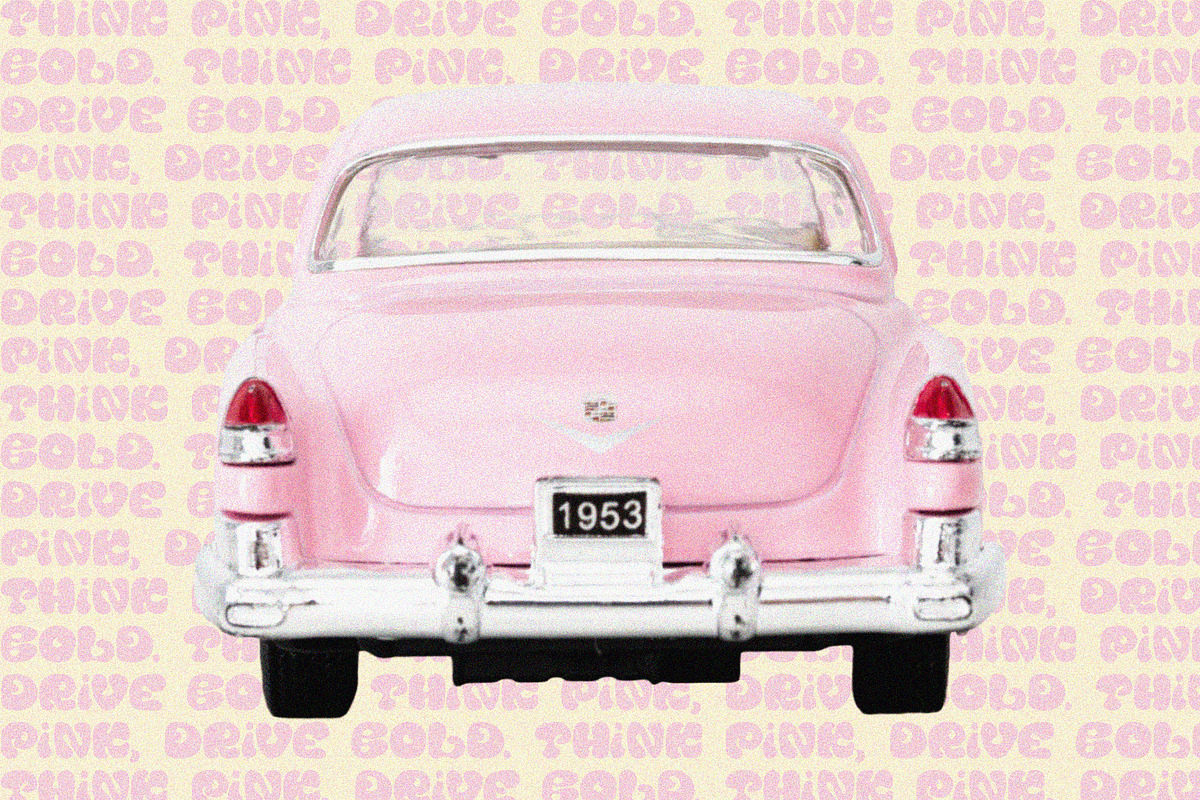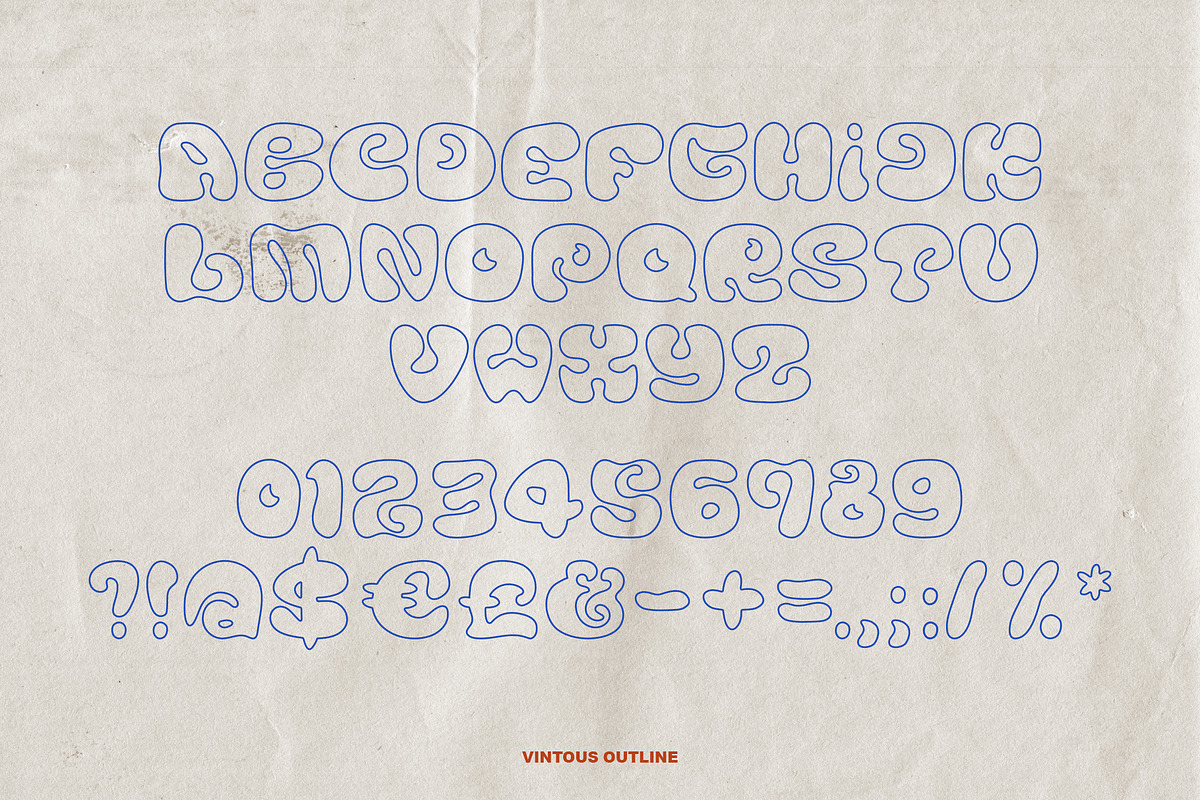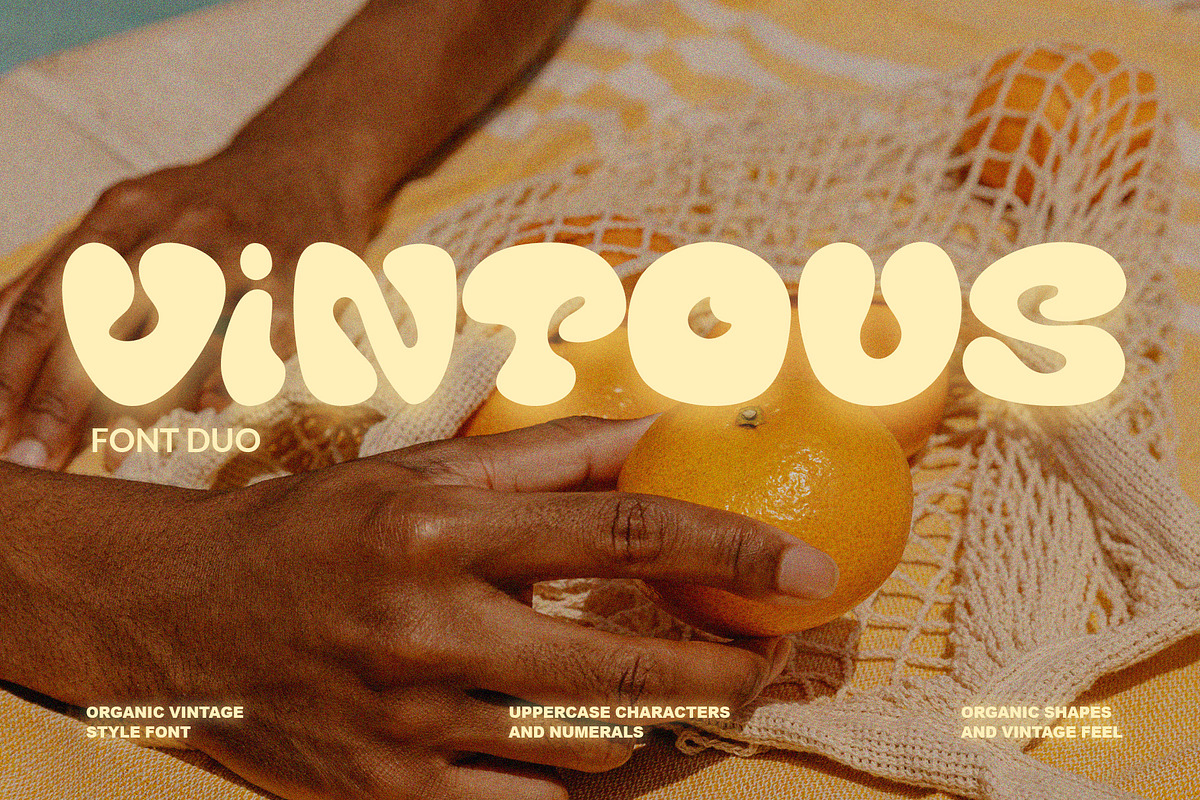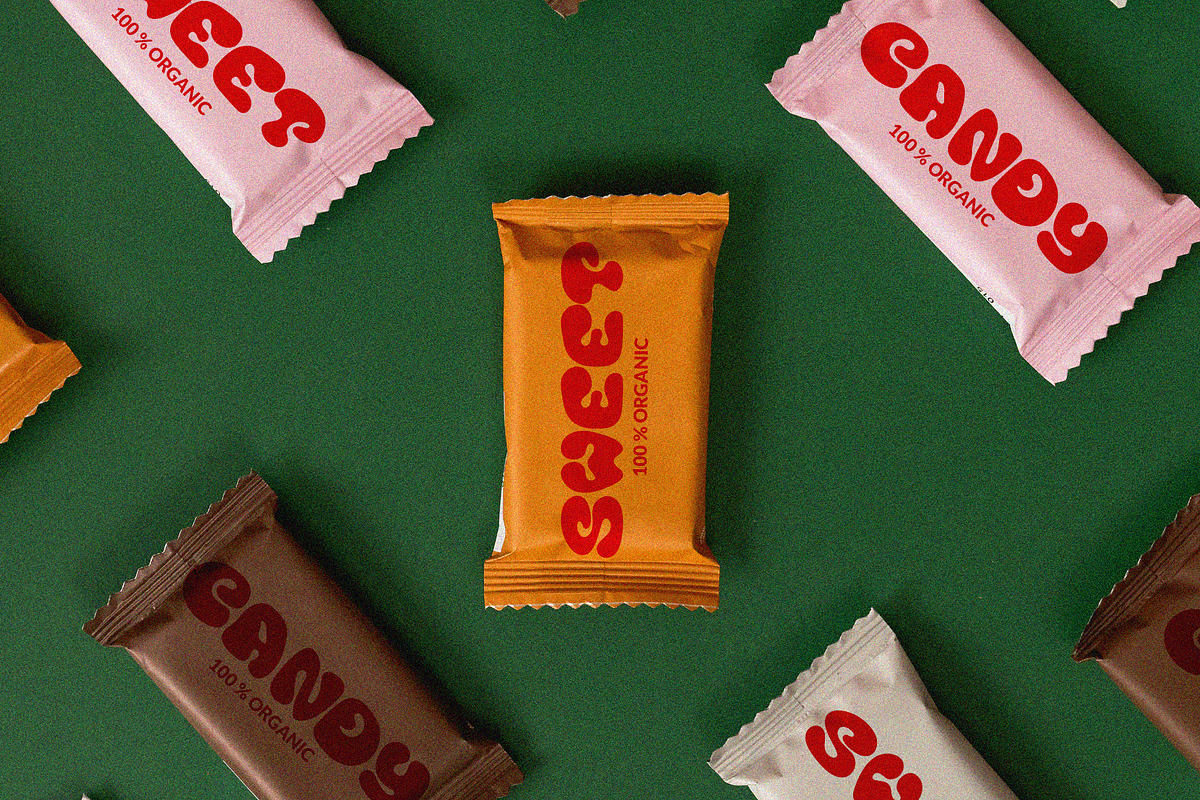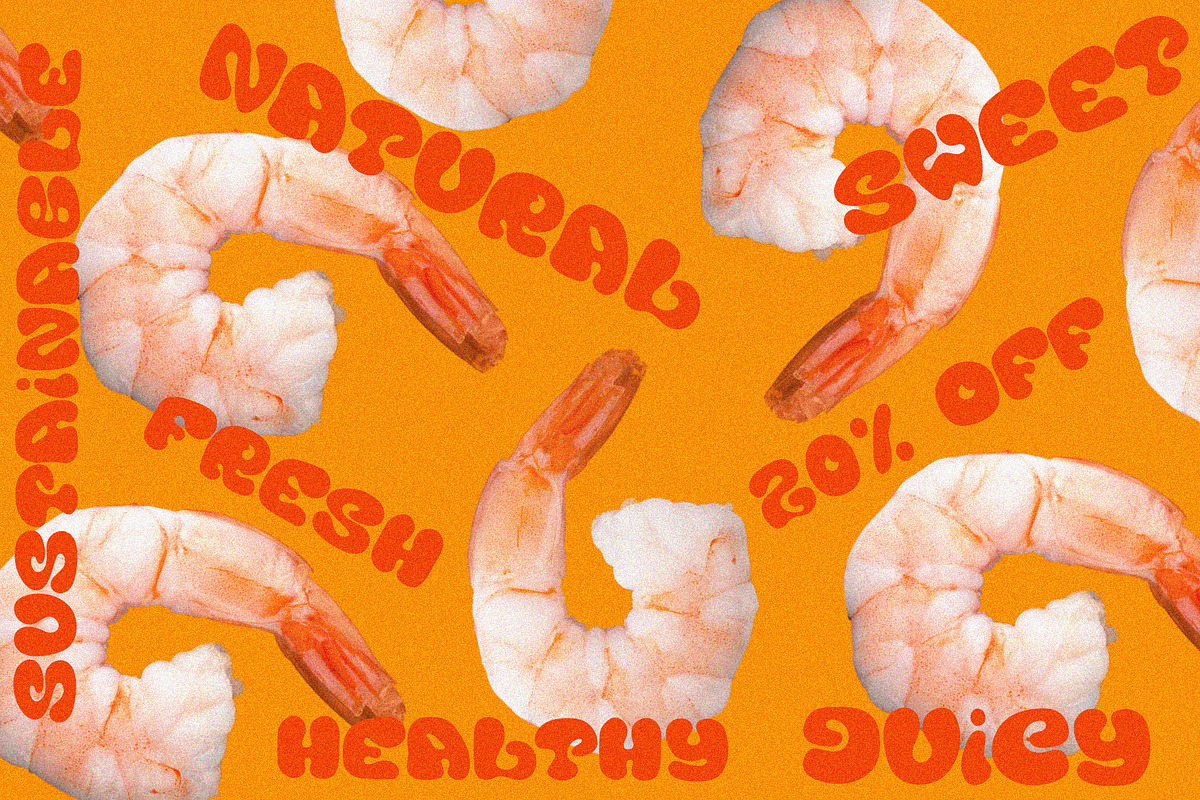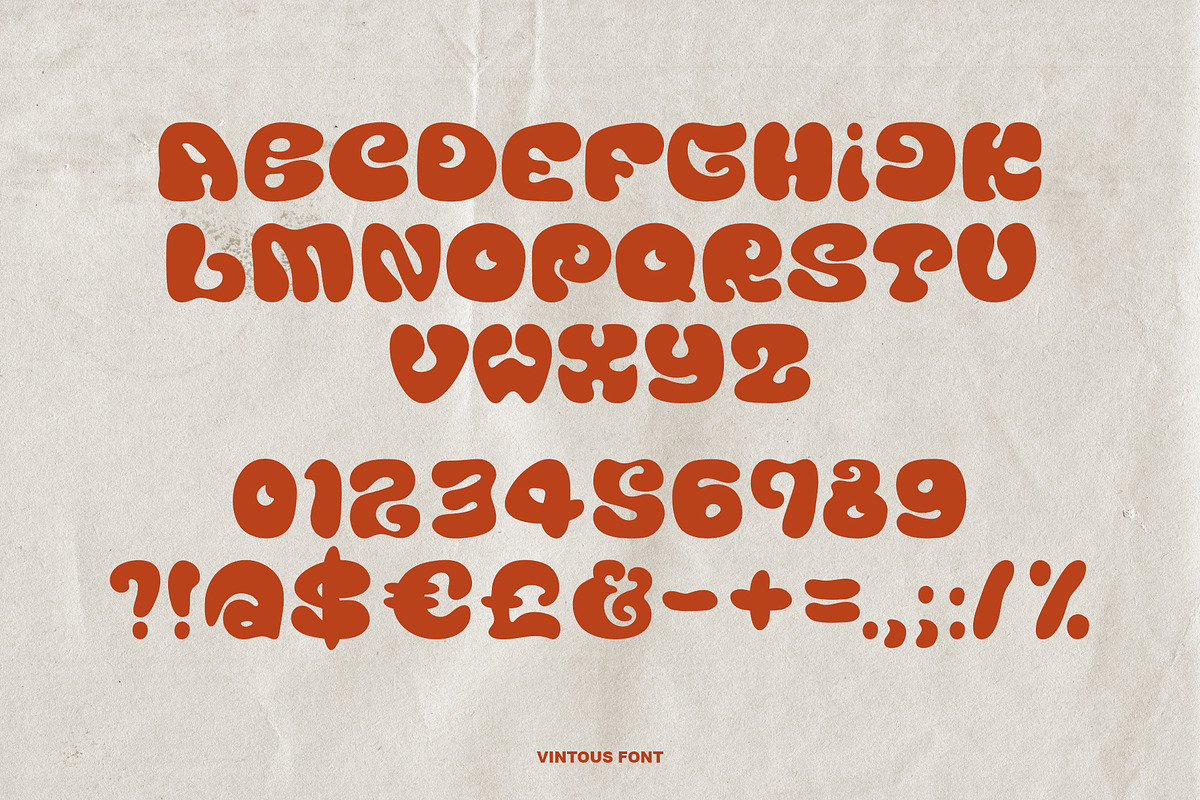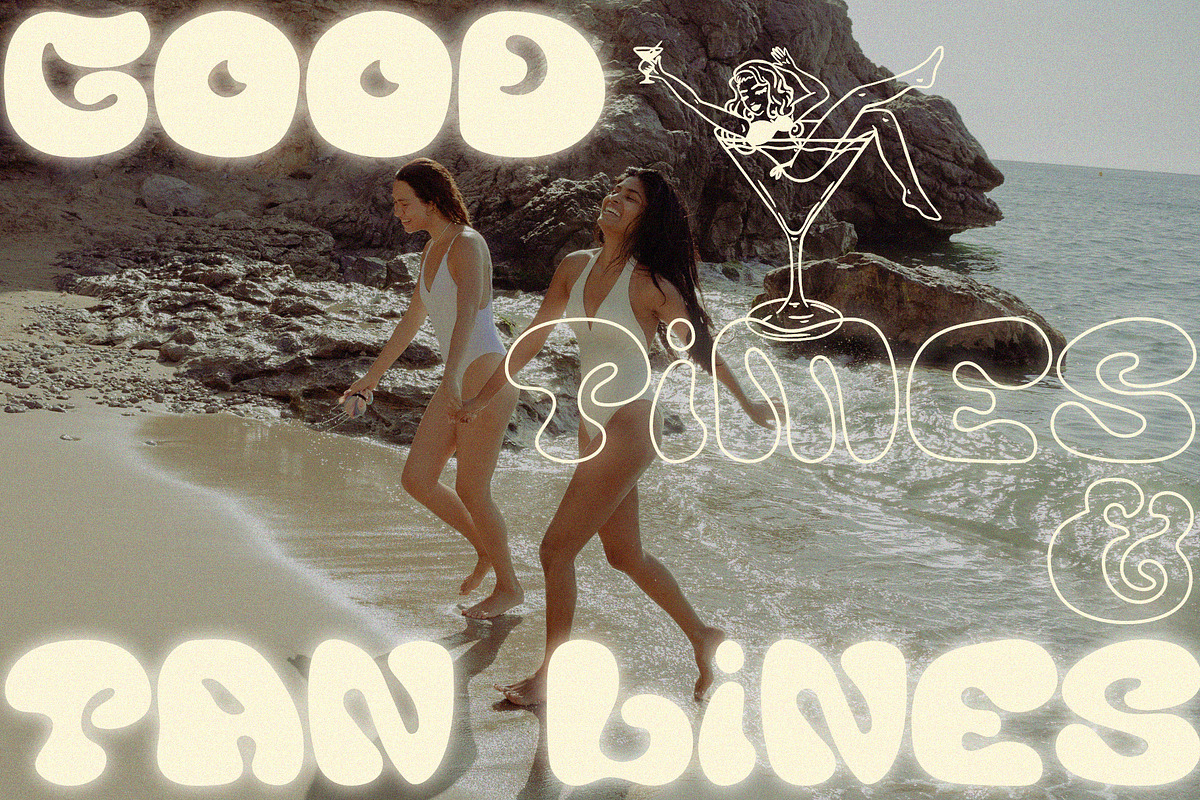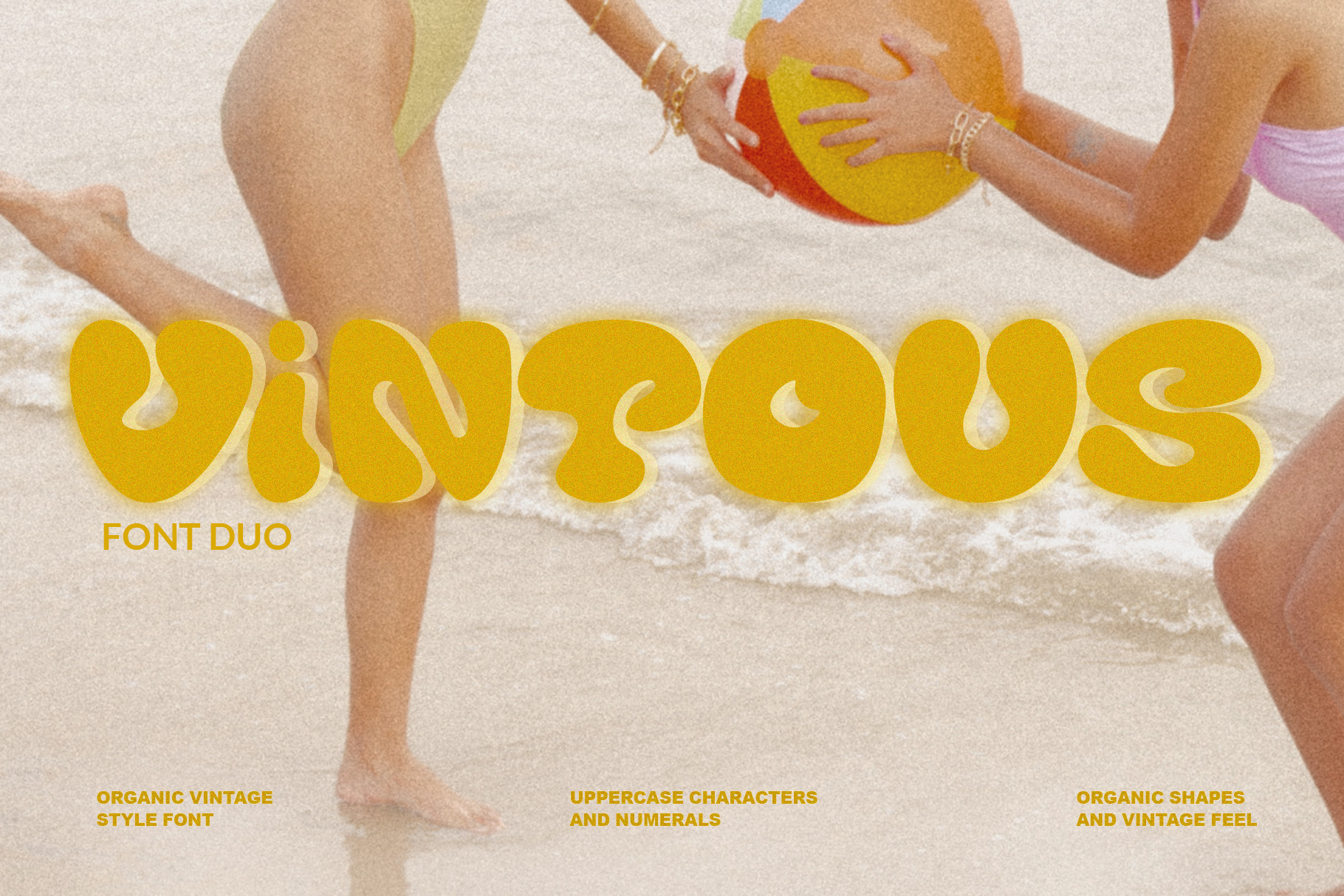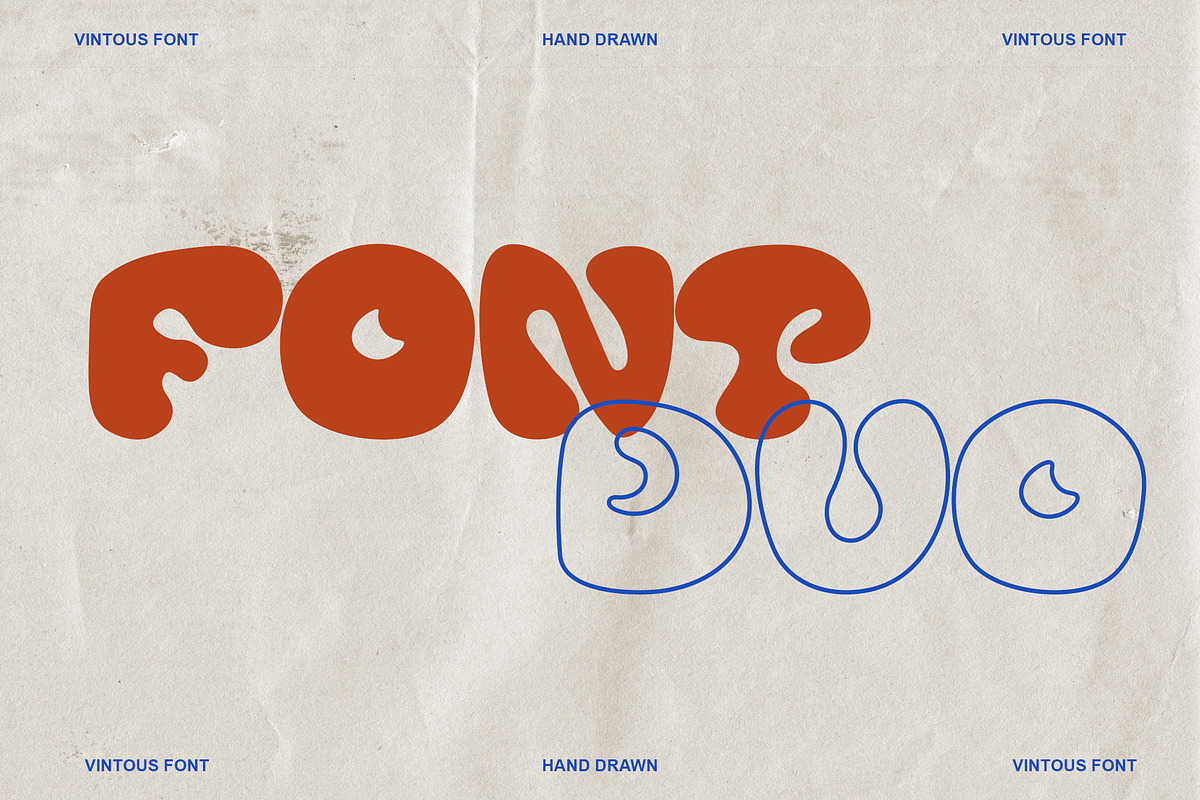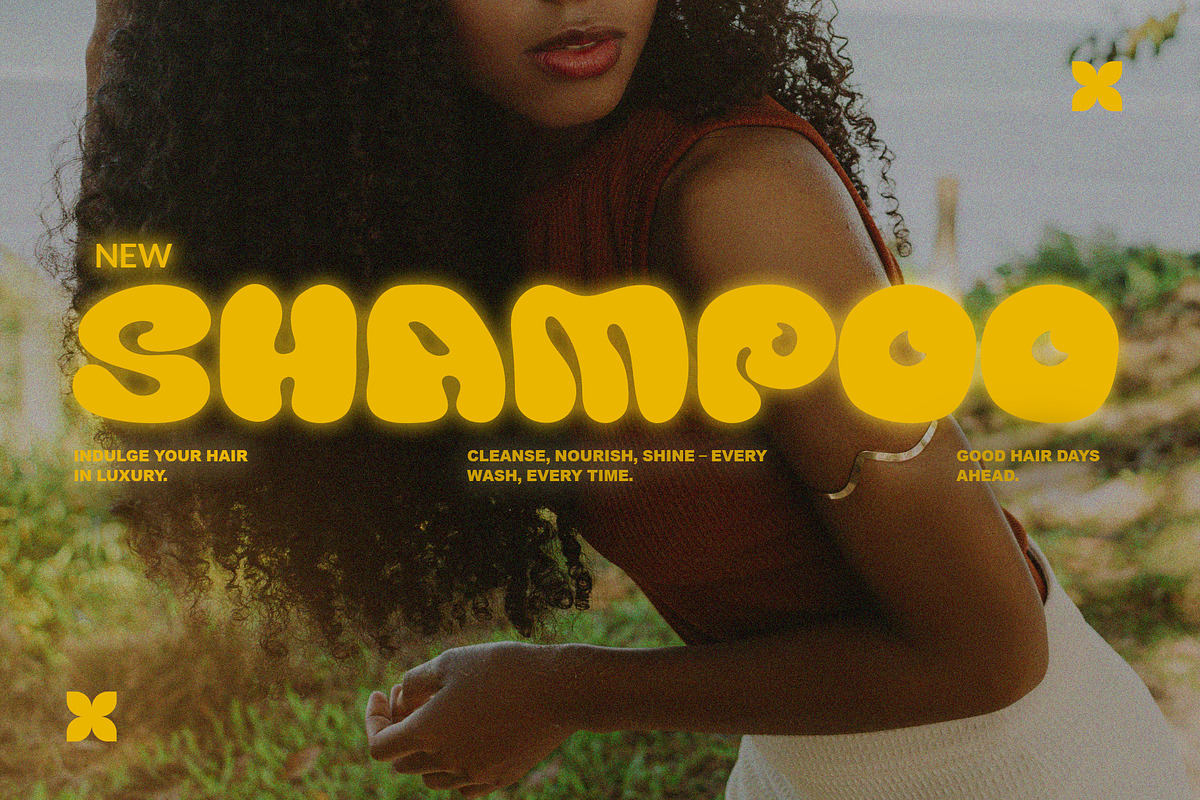
Vintage Retro Font Duo - Vintous
Vintous and Vintous Outline - retro-inspired display font duo brings classic design to life with soft curves and a playful, organic flow. It's smooth, rounded forms add a sense of rhythm and warmth, giving each letter a vibrant and expressive feel. Perfect for projects that aim to evoke nostalgia while standing out with a bold, creative edge - whether it’s vintage-themed posters, logos, branding, or display work.